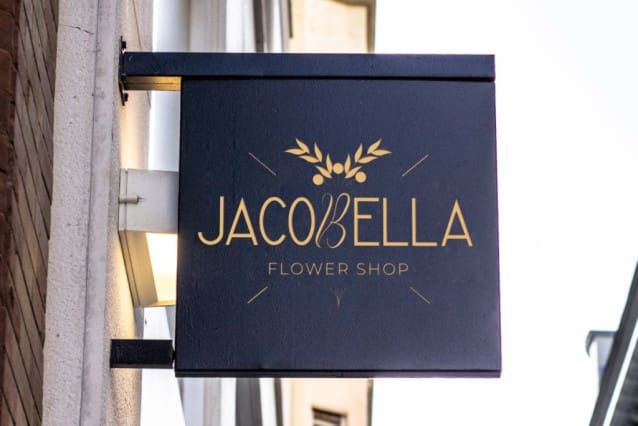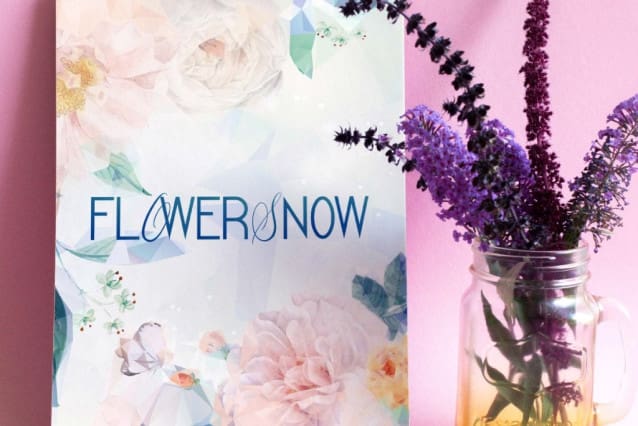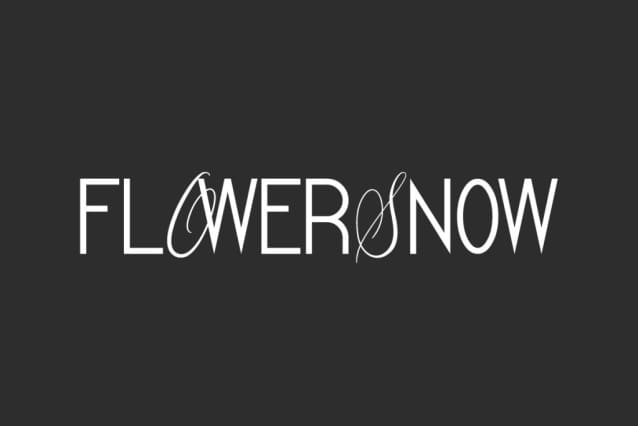
Flower Snow Font
Flower Snow Font is an elegant beautiful display font which have two different styles, script for uppercase and sans serif for lowercase. This combination makes them fit into many designs, such as brochure, business card, custom design, gift box, invitation, label, product packaging, quote, screen printing, signage, website, and more!
Flower Snow Font includes a complete set of Uppercase and Lowercase Basic Characters with everything looking like it would be for uppercase letters, Numerals, Punctuation, and Symbol. This font that exudes luxury and fancy will be suitable for many industries, such as advertisement, beauty product, event or wedding organizer, fashion, florist, furniture, handicraft, jewelry, resort, spa and salon, etc.